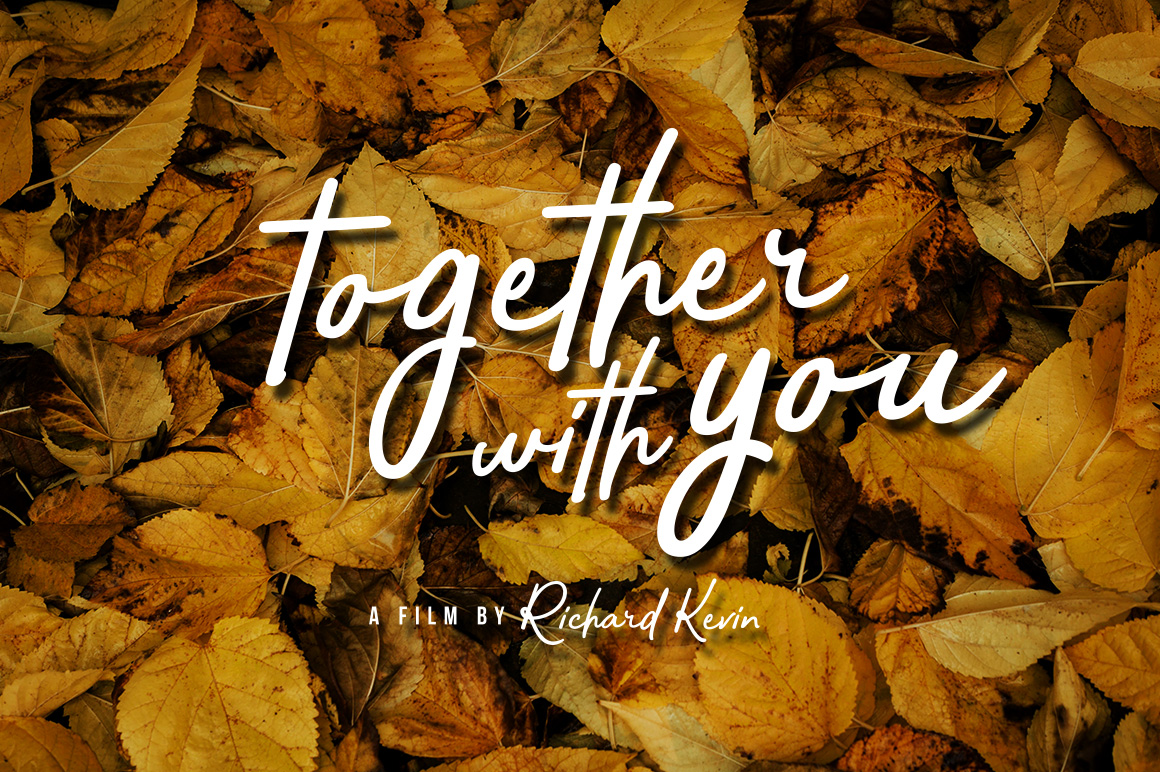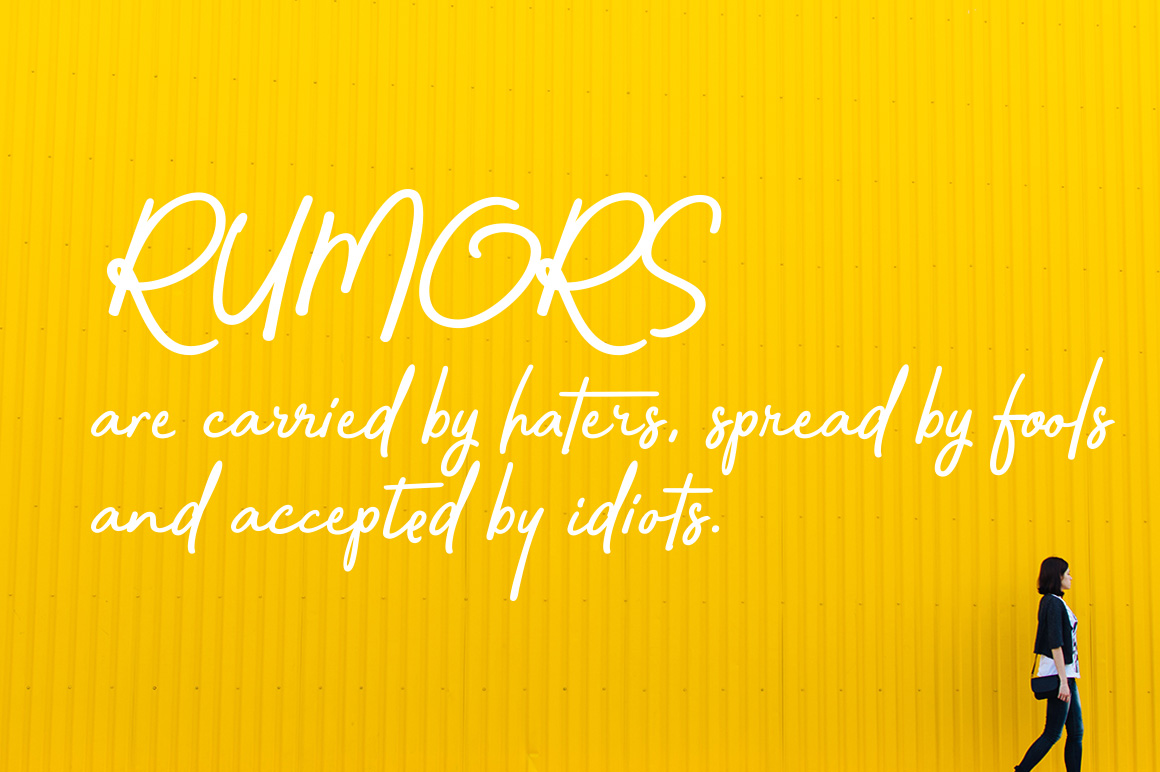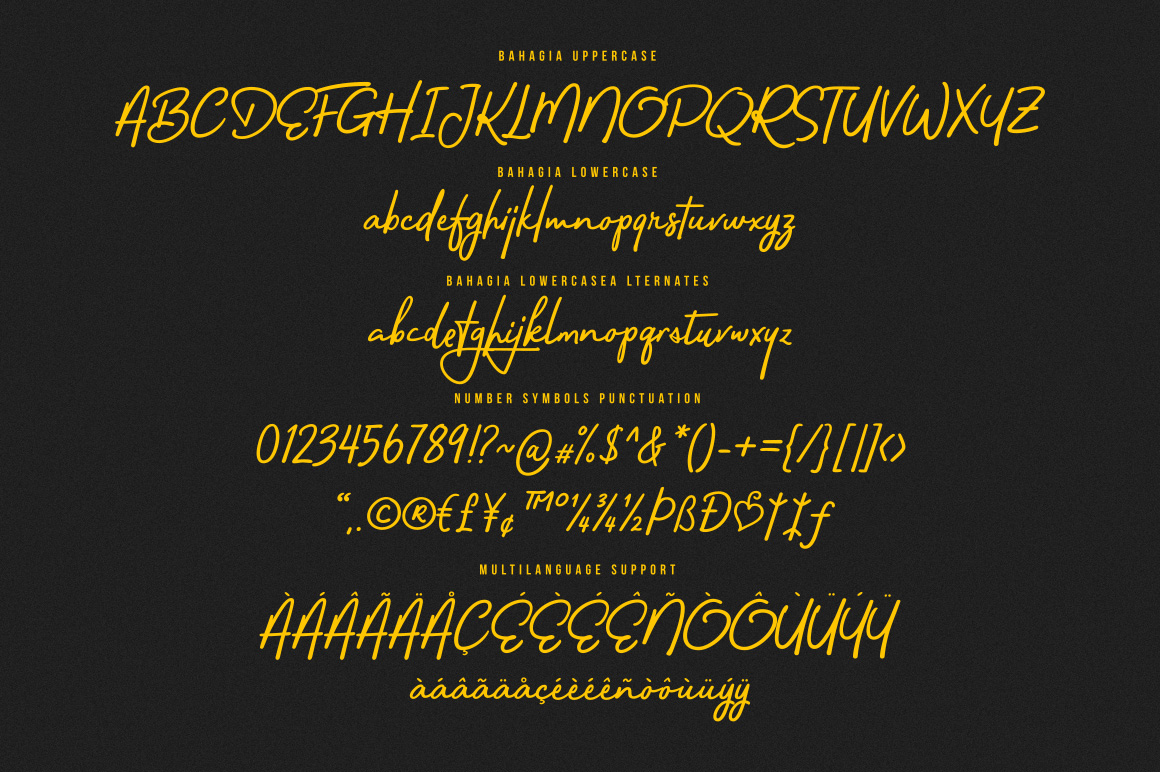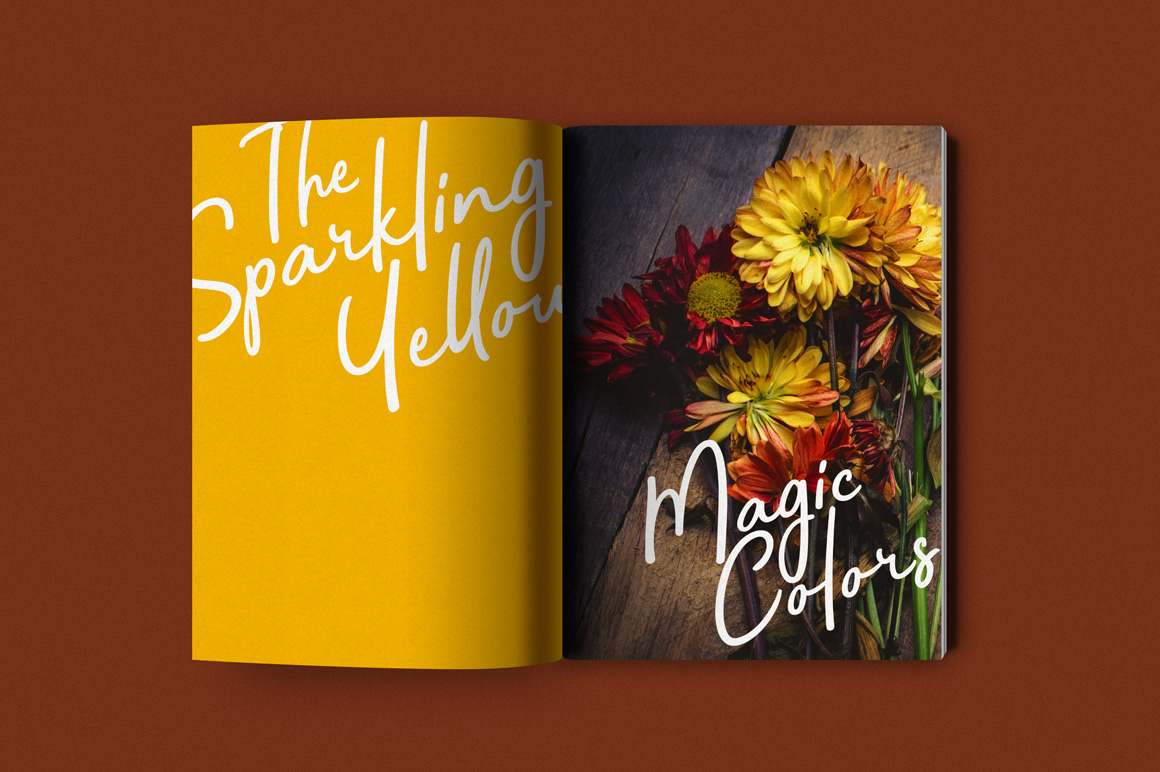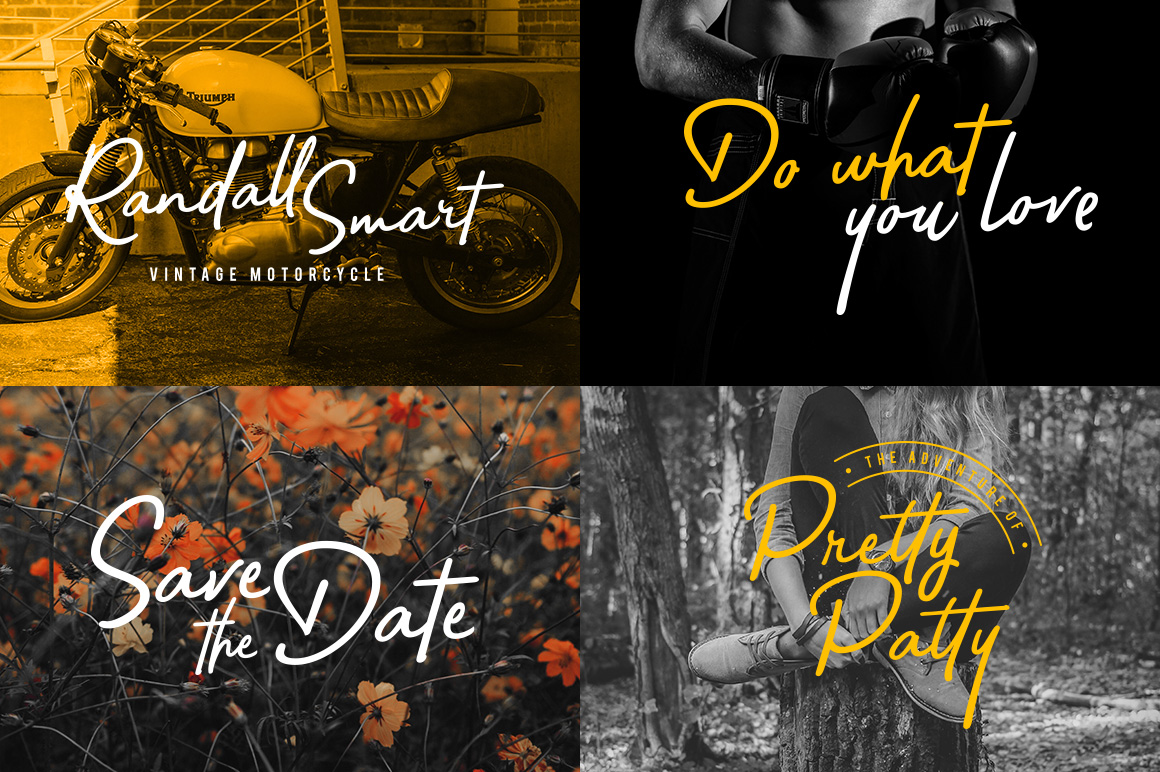
Bahagia Font: Elevate Your Designs with a Touch of Modernity and Classic Elegance
In the world of typography, fonts play a crucial role in conveying the tone and personality of a design. For designers and crafters looking to add a unique touch to their projects, Bahagia Font is a stunning display font that offers the perfect blend of modernity and classic signature style. This special script font is designed to give your designs a natural and casually impressive style that sets them apart from the rest.
What is Bahagia Font?
Bahagia Font is a beautiful display font that boasts a distinctive script style, characterized by its elegant and fluid strokes. This font is perfect for designers who want to add a touch of sophistication and glamour to their designs. Whether you’re working on a branding project, a wedding invitation, or a packaging design, Bahagia Font is sure to make a lasting impression.
Key Features of Bahagia Font
- Modern and Classic Style: Bahagia Font seamlessly blends modernity with classic elegance, making it perfect for a wide range of design projects.
- Script Font: This font features a beautiful script style that adds a touch of personality to your designs.
- Natural and Casual: Bahagia Font has a natural and casual feel that makes it perfect for designs that require a more relaxed and approachable tone.
- Display Font: This font is designed to make a statement, making it perfect for headlines, titles, and other display text.
Why Choose Bahagia Font?
With so many fonts available, why choose Bahagia Font? Here are just a few reasons why designers and crafters love this font:
- Unique Style: Bahagia Font offers a unique and distinctive style that sets it apart from other fonts.
- Versatility: This font can be used for a wide range of design projects, from branding and advertising to packaging and wedding invitations.
- High-Quality Design: This font is designed with high-quality craftsmanship, ensuring that it looks great in any design.
How to Use Bahagia Font
Using Bahagia Font is easy! Here are a few tips to get you started:
- Pair it with Other Fonts: Bahagia Font pairs well with other fonts, so don’t be afraid to experiment with different combinations.
- Use it for Headlines: This font is perfect for headlines and titles, where its bold and elegant style can really shine.
Here are a few tips and tricks for designers and crafters looking to get the most out of Bahagia Font:
- Experiment with Different Sizes: Try using Bahagia Font in different sizes to see how it looks in various contexts.
- Play with Color: This font looks great in a variety of colors, so don’t be afraid to experiment with different hues.
- Use it for Branding: Bahagia Font is perfect for branding projects, where its unique style can help establish a memorable identity.
Bahagia Font is a stunning display font that offers the perfect blend of modernity and classic elegance. With its unique script style and natural, casual feel, this font is perfect for designers and crafters looking to add a touch of sophistication and glamour to their designs. Whether you’re working on a branding project, a wedding invitation, or a packaging design, Bahagia Font is sure to make a lasting impression.